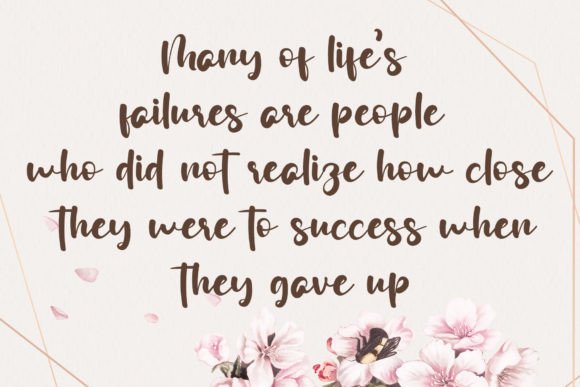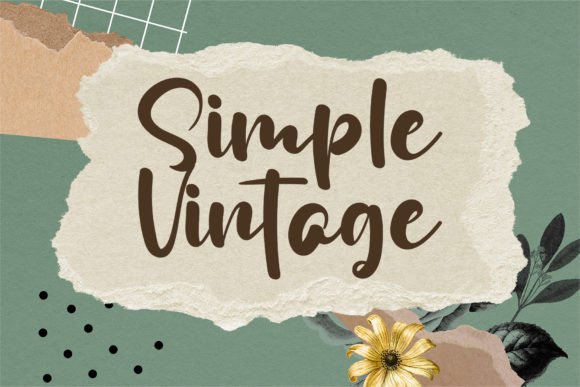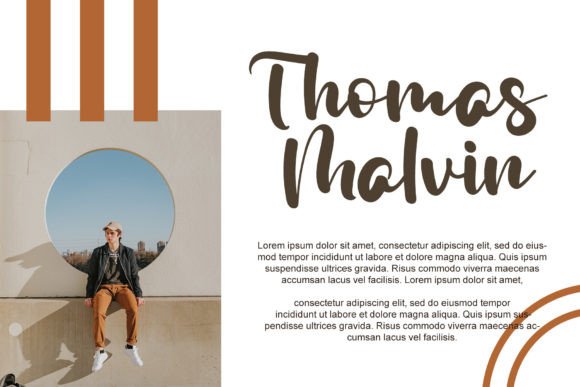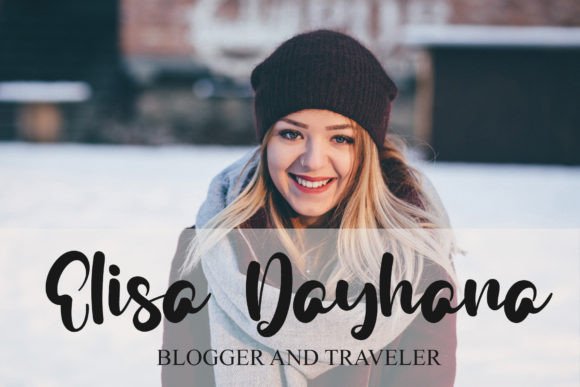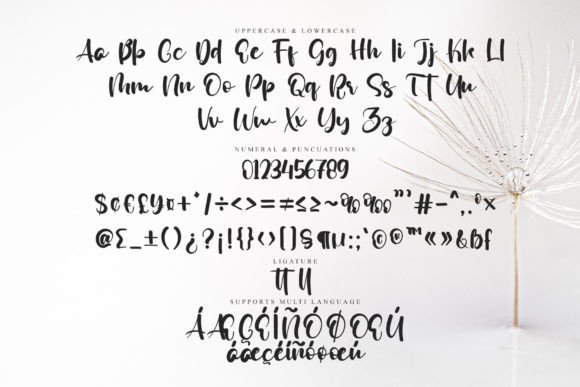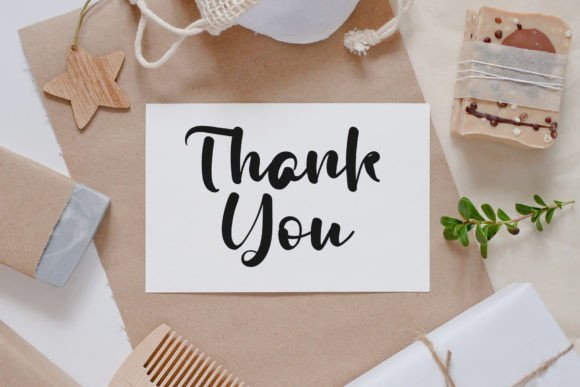
Introducing Backing Font: Elevate Your Designs with Timeless Elegance
In the world of typography, few fonts manage to capture the essence of classic calligraphy while still exuding a modern vibe. Backing Font is one such gem that seamlessly blends traditional elegance with contemporary flair, making it an indispensable asset for designers and crafters alike.
The Inspiration Behind Backing Font
Backing Font draws its inspiration from the timeless classics of calligraphy, where the art of beautiful handwriting is elevated to new heights. The creators of Backing Font sought to capture the fluidity, the grace, and the impeccable form that define the best of traditional calligraphy, and infuse it with a modern twist that resonates with today’s design sensibilities.
Key Features of Backing Font
- Stylish Handwritten Appeal: Backing Font boasts a stylish, handwritten appearance that adds a personal touch to any project. Its elegant strokes and fluid connections evoke a sense of sophistication and refinement.
- Contemporary Atmosphere: What sets Backing Font apart is its ability to feel both classic and contemporary. Its clean lines and balanced proportions ensure that it fits right in with modern design trends, while its calligraphic roots keep it grounded in tradition.
- Impeccable Form: One of the standout features of Backing Font is its impeccable form. Each letter is carefully crafted to ensure that the font looks great in any context, whether it’s used for headings, titles, or body text.
- Balanced and Varied: The designers of Backing Font have ensured that it offers a good amount of variation, making it versatile enough for a wide range of applications. From elegant wedding invitations to sophisticated branding materials, Backing Font adapts beautifully to different design needs.
Why Choose Backing Font for Your Projects?
For designers and crafters looking to elevate their projects with a touch of elegance, Backing Font is an excellent choice. Here are a few reasons why:
- Enhances Beauty: Backing Font is designed to enhance the beauty of your projects. Its elegant appearance can transform mundane text into a statement piece that captures attention and inspires admiration.
- Versatility: Whether you’re working on a digital project, such as a website or a social media graphic, or a physical one, like a brochure or a poster, Backing Font’s versatility ensures it will look great.
- Easy to Read: Despite its elegant and artistic nature, Backing Font remains highly legible, making it suitable for both display purposes and longer texts.
- Unique Appeal: In a world where many designs look similar, Backing Font offers a unique appeal that can help your projects stand out from the crowd.
How to Use Backing Font Effectively
To get the most out of Backing Font, consider the following tips:
- Pair with Complementary Fonts: For maximum impact, pair Backing Font with fonts that complement its elegant style. A simple sans-serif font for body text can create a beautiful contrast.
- Experiment with Colors: While Backing Font looks stunning in black or dark colors, don’t be afraid to experiment with other hues. Pastels, rich jewel tones, or even metallic colors can add an extra layer of sophistication.
- Play with Sizes: Take advantage of Backing Font’s versatility by using it in various sizes. Large headings can make a dramatic statement, while smaller text can add a touch of elegance to more detailed sections.
Backing Font is more than just a typeface; it’s a design tool that can elevate your projects to new heights of elegance and sophistication. With its stylish handwritten appeal, contemporary atmosphere, and impeccable form, it’s an excellent addition to any designer’s or crafter’s toolkit. Whether you’re looking to create something timeless and classic or modern and trendy, Backing Font provides the perfect foundation for your creative endeavors.